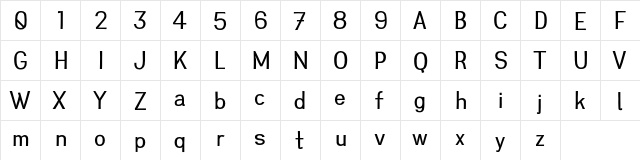
Greenstyle-Personal-Use-Only Regular
| Foundry | Parker Creative, LLC. |
| Designer | Alan Parker |
Design Context for Greenstyle-Personal-Use-Only Typeface
Greenstyle-Personal-Use-Only is a composed and adaptable typeface that performs quietly and consistently across a wide range of design contexts.